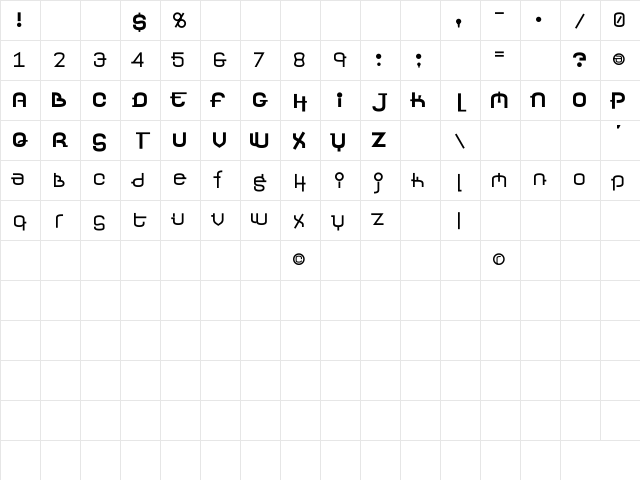
Yerevan Regular
Foundry: Starving-4 Entertainment
Designer: Darren Rigby
Design Context for Yerevan
Yerevan is a composed and adaptable typeface that performs quietly and consistently across a wide range of design contexts.
Who designed the Yerevan Regular font?